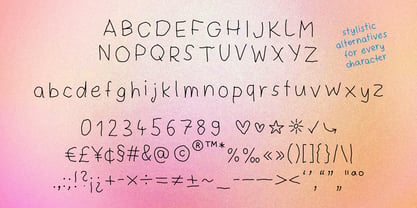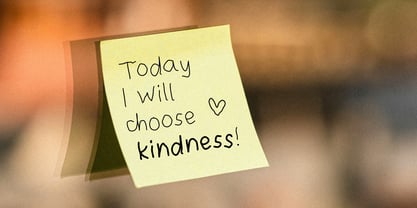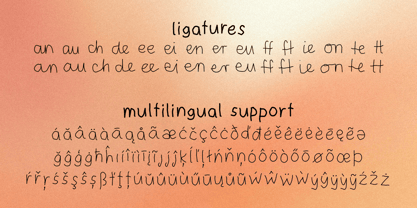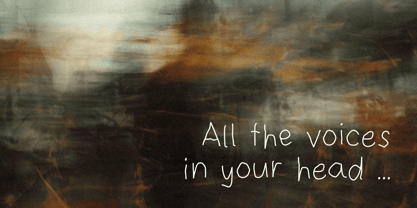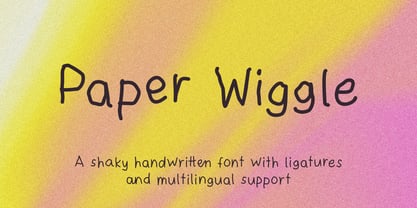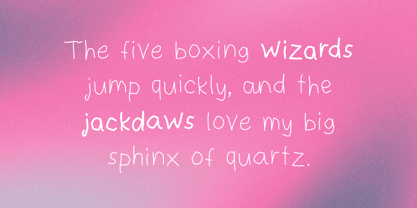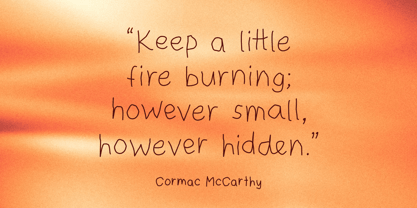
Paper Wiggle
The Paper Wiggle Font Family was designed by Jana Matthäus and published by lightconfetti. Paper Wiggle contains 2 styles and family package options. More about this family
Paper Wiggle is a shaky, handwritten font with charming little flaws. Drawn on a tablet with a loose, relaxed grip, this typeface brings a playful and unique touch to any design.
The font comes in two weights – Regular and Bold. Packed with 665 glyphs, ligatures, stylistic alternates, and multilingual support, it gives you full creative freedom to play around with.